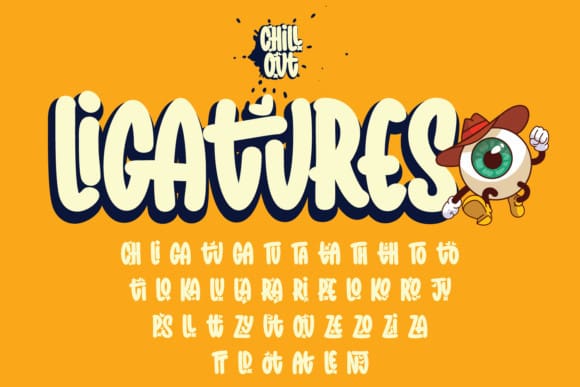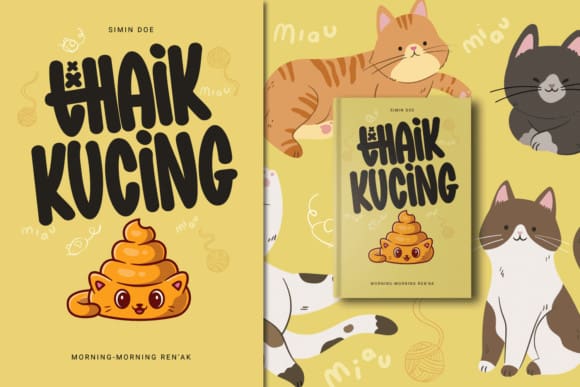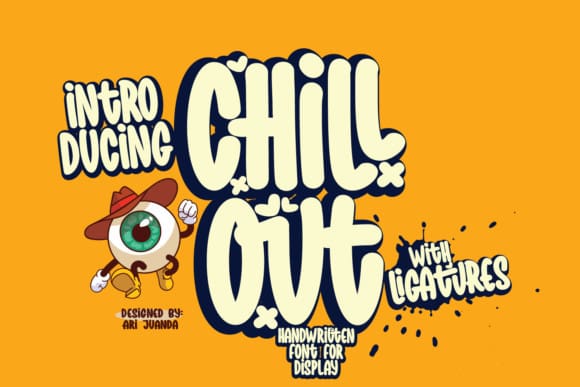
Chill Out Font
Chill Out Font – This adorable display font is designed to bring a touch of fun to your creative endeavors, drawing inspiration from the delightful world of cute cartoon animation films, bold graffiti, and the innocent joy of childhood.
Cuteness Overload: “Chill Out” is your go-to font for injecting a playful and adorable vibe into your designs. Each letter is crafted with a delightful charm that is sure to captivate audiences of all ages.
Graffiti Boldness: Borrowing from the world of bold graffiti, “Chill Out” makes a statement with its confident and eye-catching letterforms. This font isn’t afraid to stand out and add a splash of personality to any project.
Childlike Wonder: Inspired by the imaginative and innocent world of children, this font captures the essence of carefree creativity. It’s perfect for projects aimed at the young and the young at heart.
Versatile Usage: Whether you’re designing invitations, crafting children’s books, or working on any creative project that needs a touch of whimsicality, “Chill Out” is a versatile font that adapts effortlessly to various contexts.